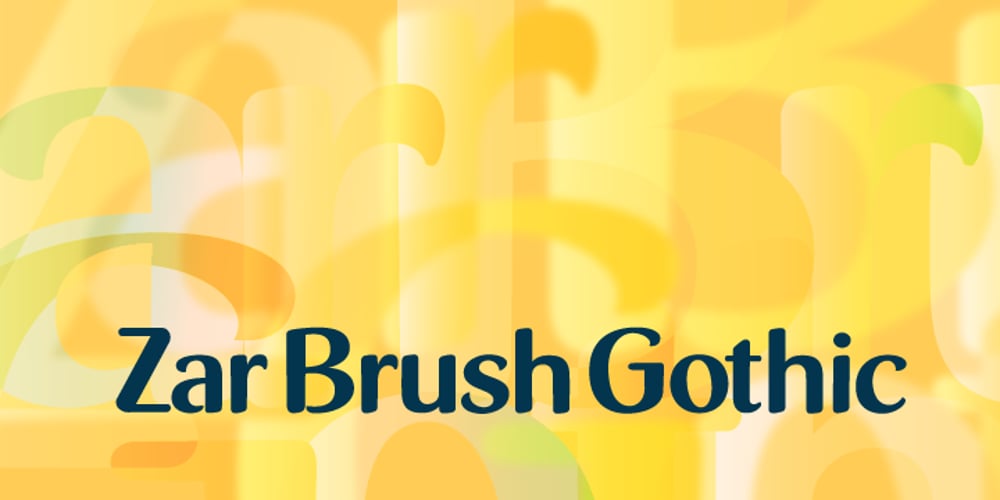
Zar Brush Gothic Font Family was designed by Randy Szarzynski and published by SzarDesign. Zar Brush Gothic contains 1 styles and family package options. ZarBrush Gothic is a “speedball” font inspired by showcard lettering done with a loaded red sable brush. Perfect for text and headlines.